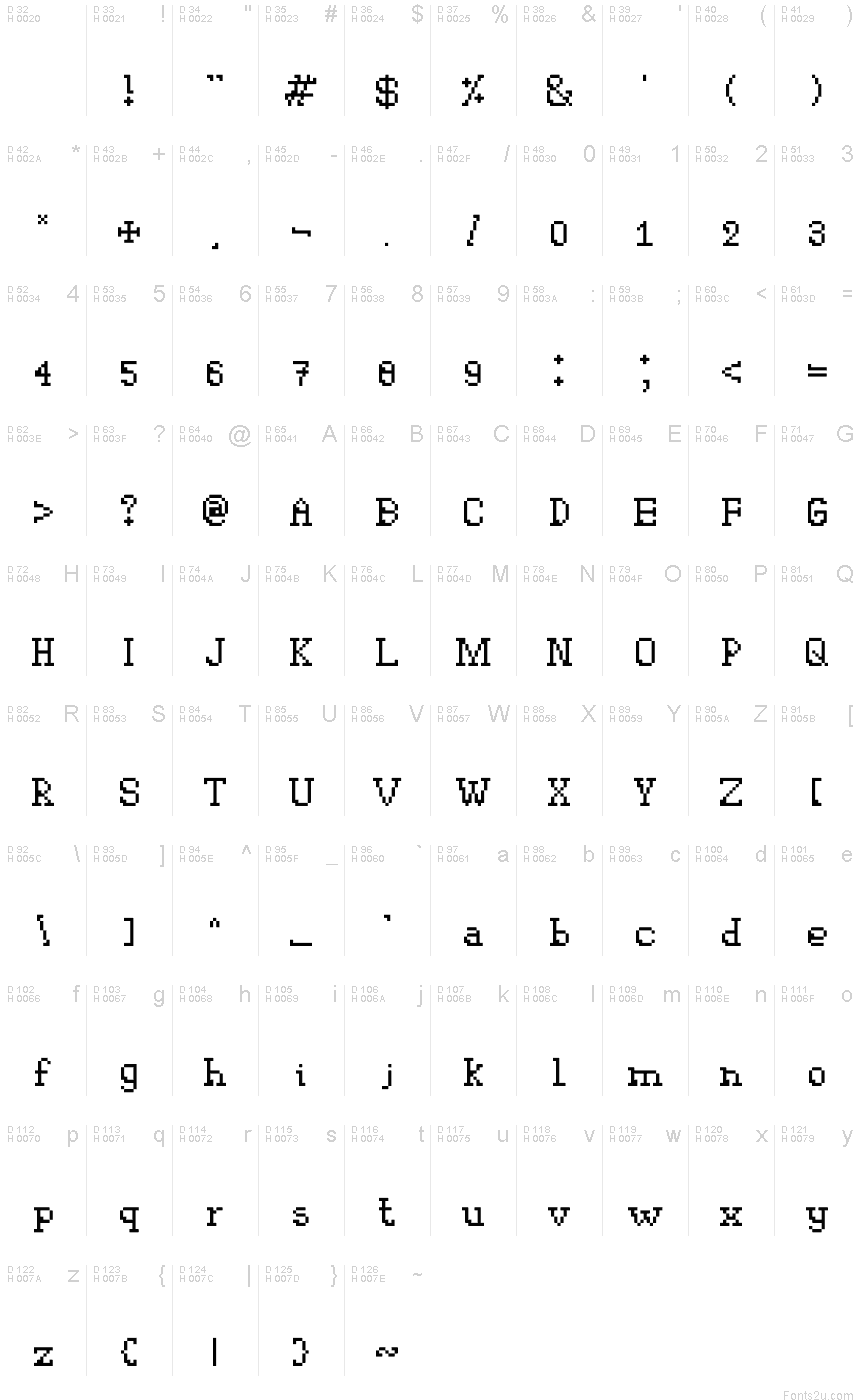
Westington
Another practice font; This time, complete with Greek characters, more punctuation marks, more accented character, ten built in cup holders, and five year warrenty! (Okay, those last two comments may be lies.)
This is a basic bitmap font with serifs. Like I said in the previous sentence, there are more characters than in the other font I've made (Brandi Alexander). Almost every character in this font is in the image below; The others are two incredibly obscure characters put in as a kind of watermark. Once more, this was simply made as practice.